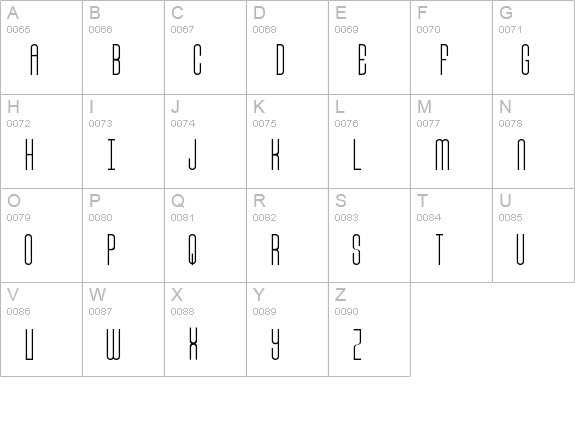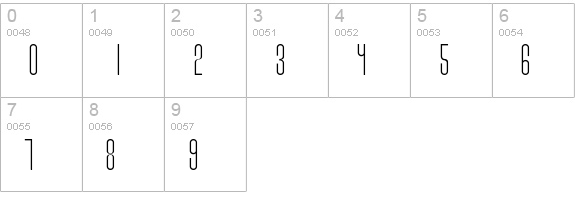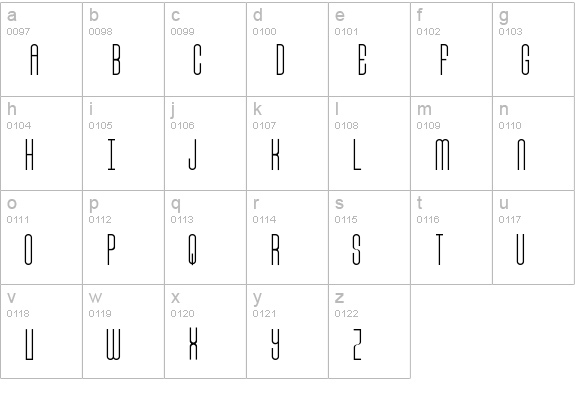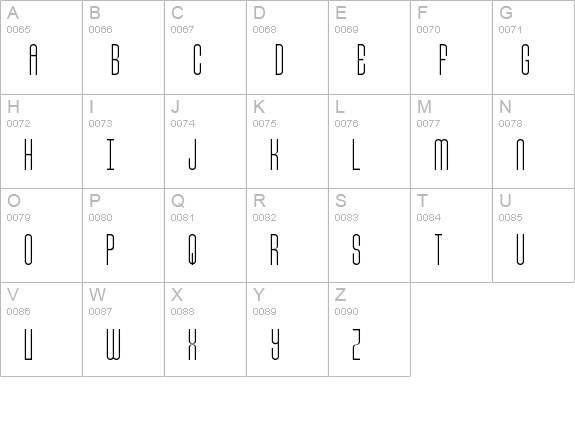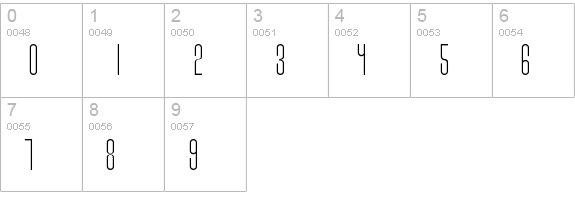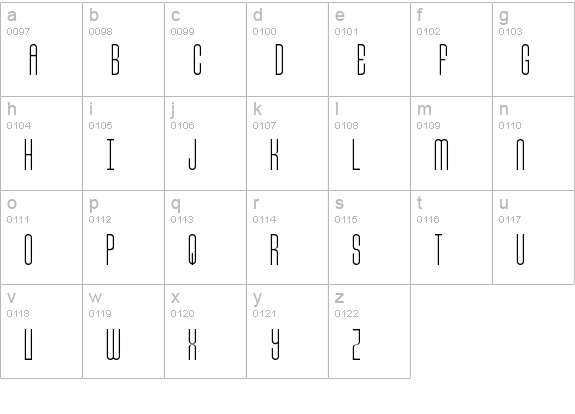
Introducing Font 33 - a sleek and modern typeface that exudes sophistication and elegance. With its clean lines and stylish curves, Font 33 is perfect for adding a touch of class to your design projects. Whether you're creating a logo, poster, or website, this versatile font is sure to make a statement. The best part? Font 33 is completely free to download at FontsMarket.com. That's right, you can enhance your designs with this stunning font without having to spend a dime. Don't miss out on the opportunity to elevate your projects with the beauty of Font 33. Download it today and see the difference it can make!